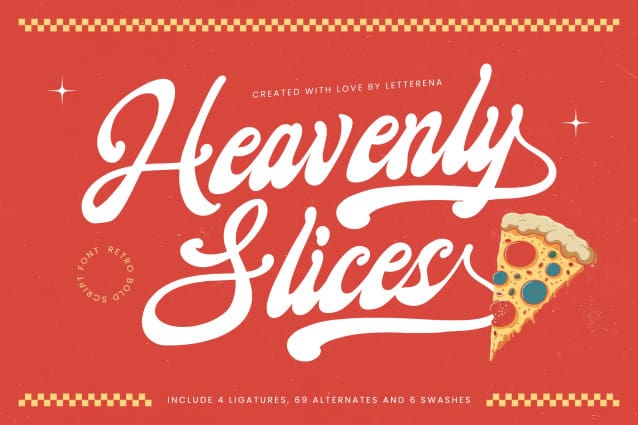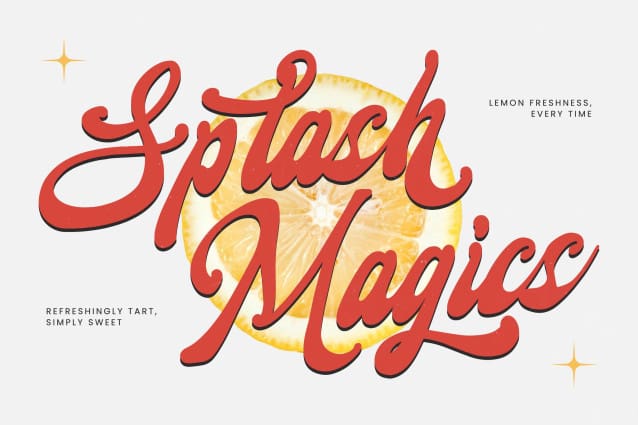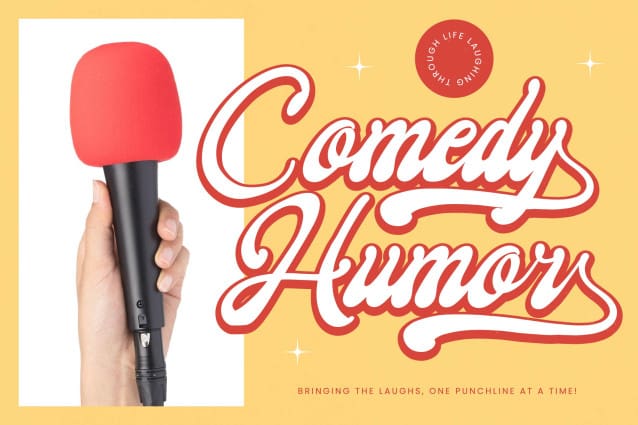
Heavenly Slices Font
Heavenly Slices Font – Retro Bold Script , from Letterena, is a Luxury Script font, suitable for any projects such as: logos, branding projects, homeware designs, product packaging, mugs, quotes, posters, shopping bags, t-shirts, book covers, name card, invitation cards, greeting cards, label, photography, watermark, special events, and all your other luxury and beautiful projects that need a Luxury Script taste.